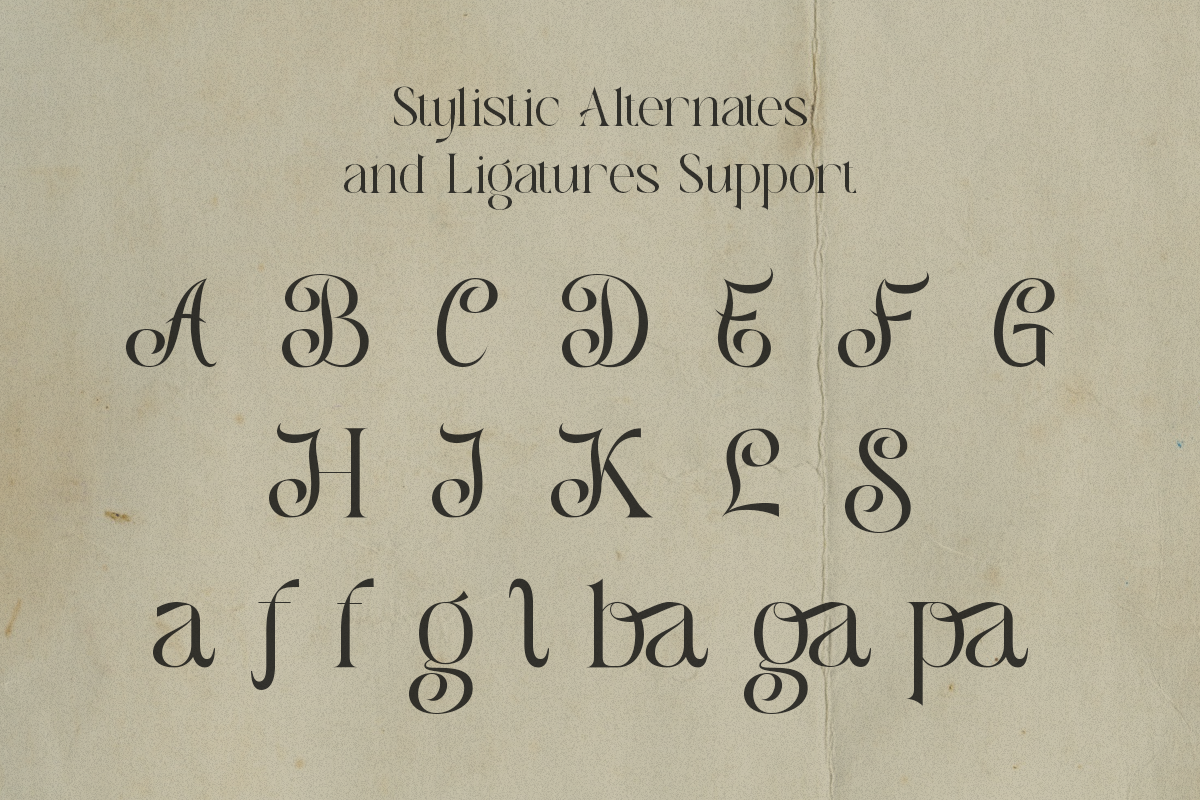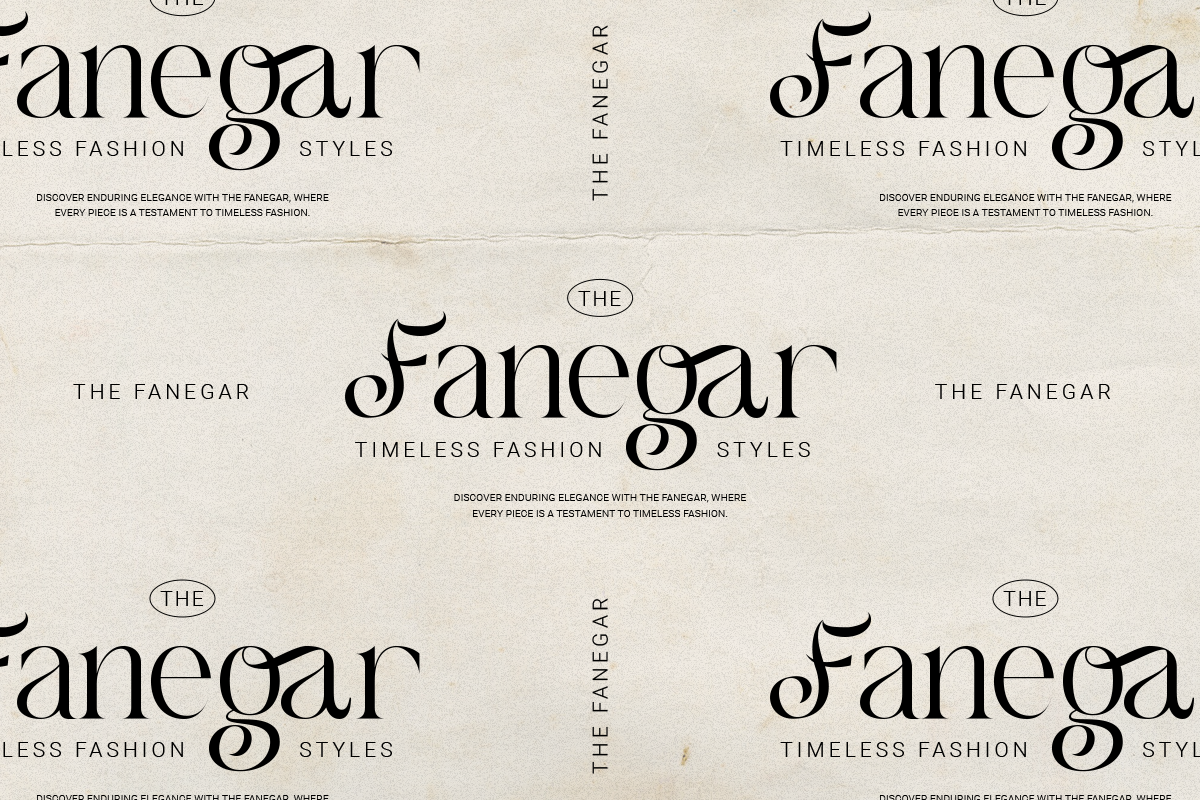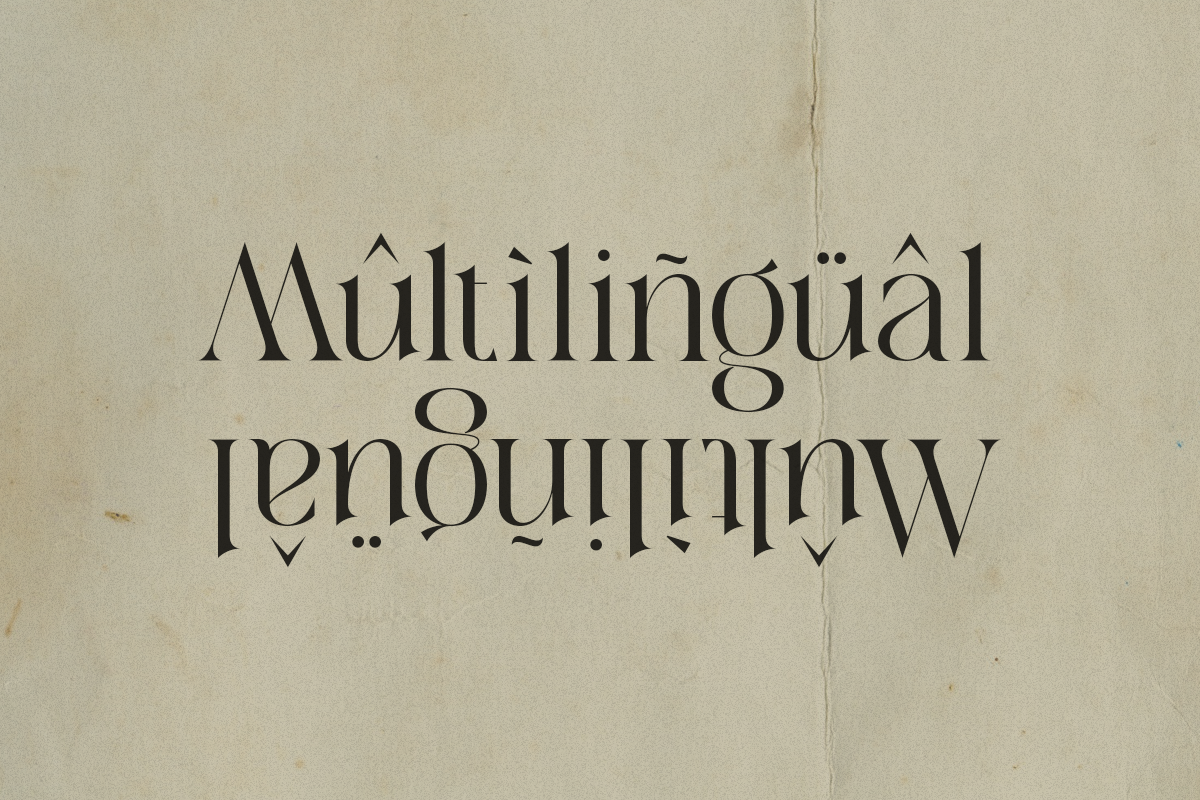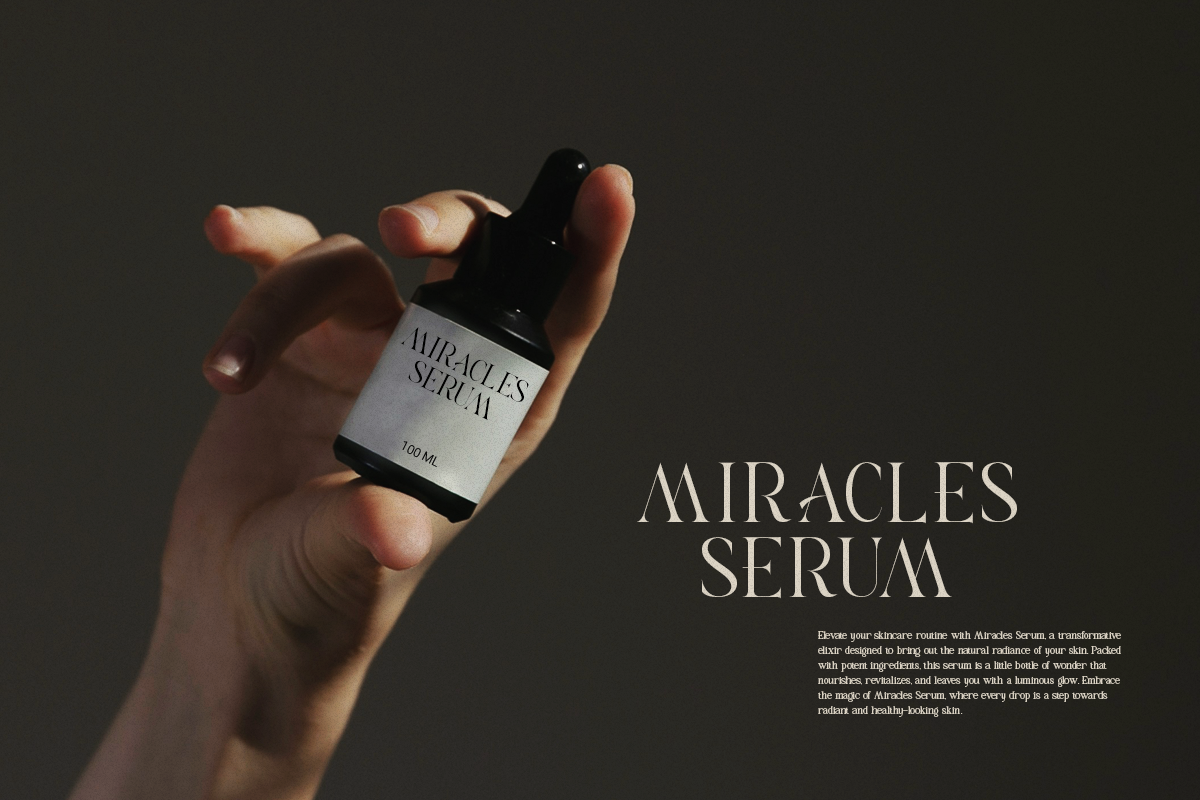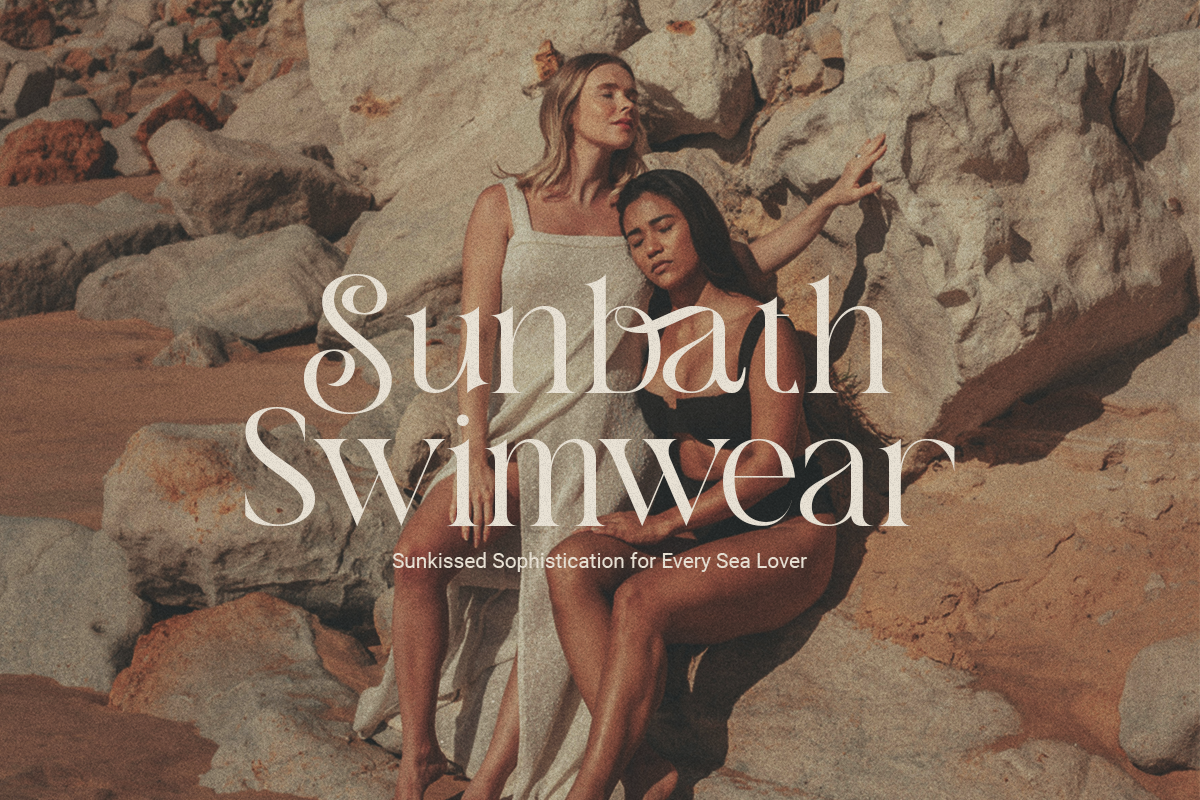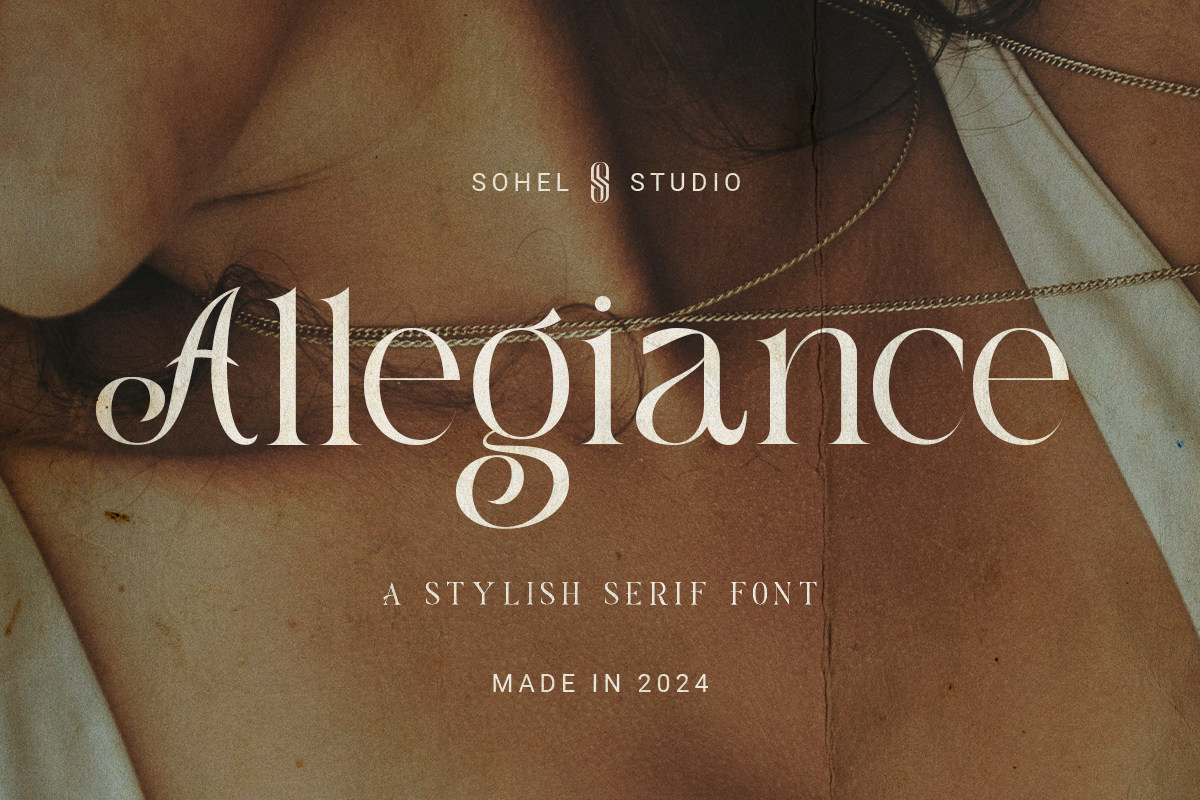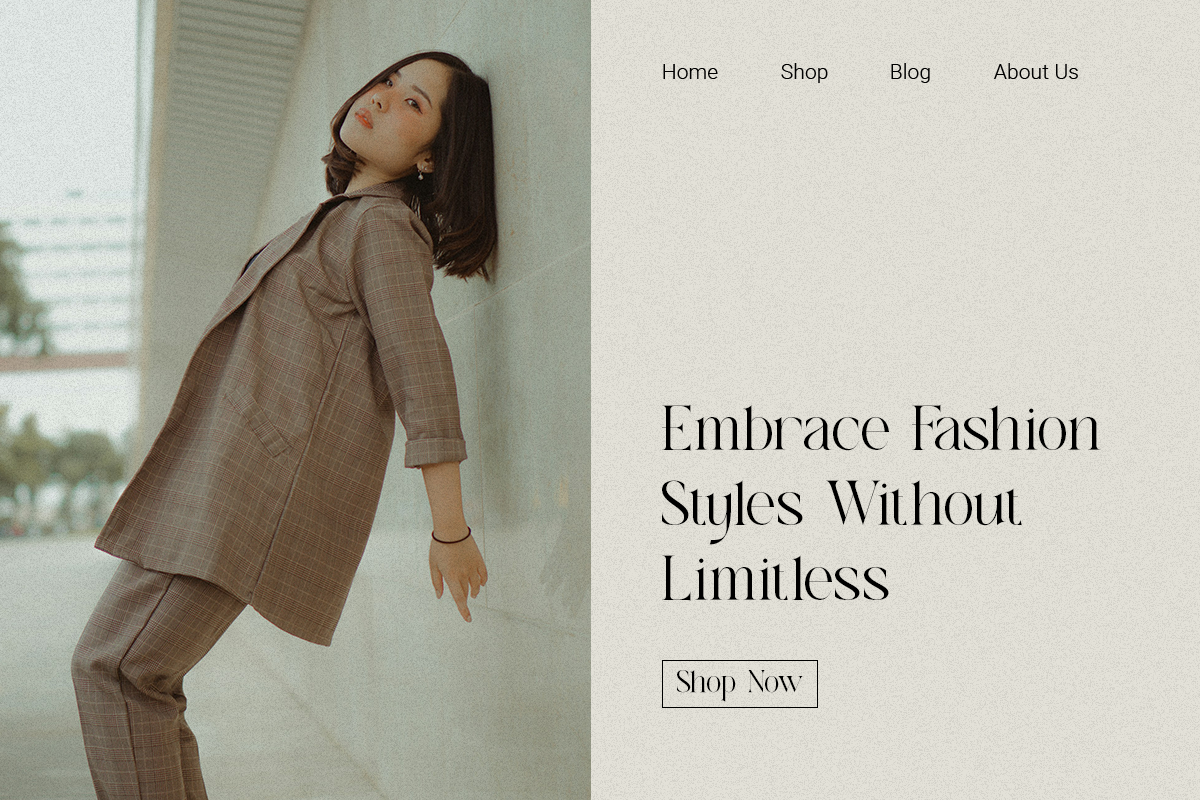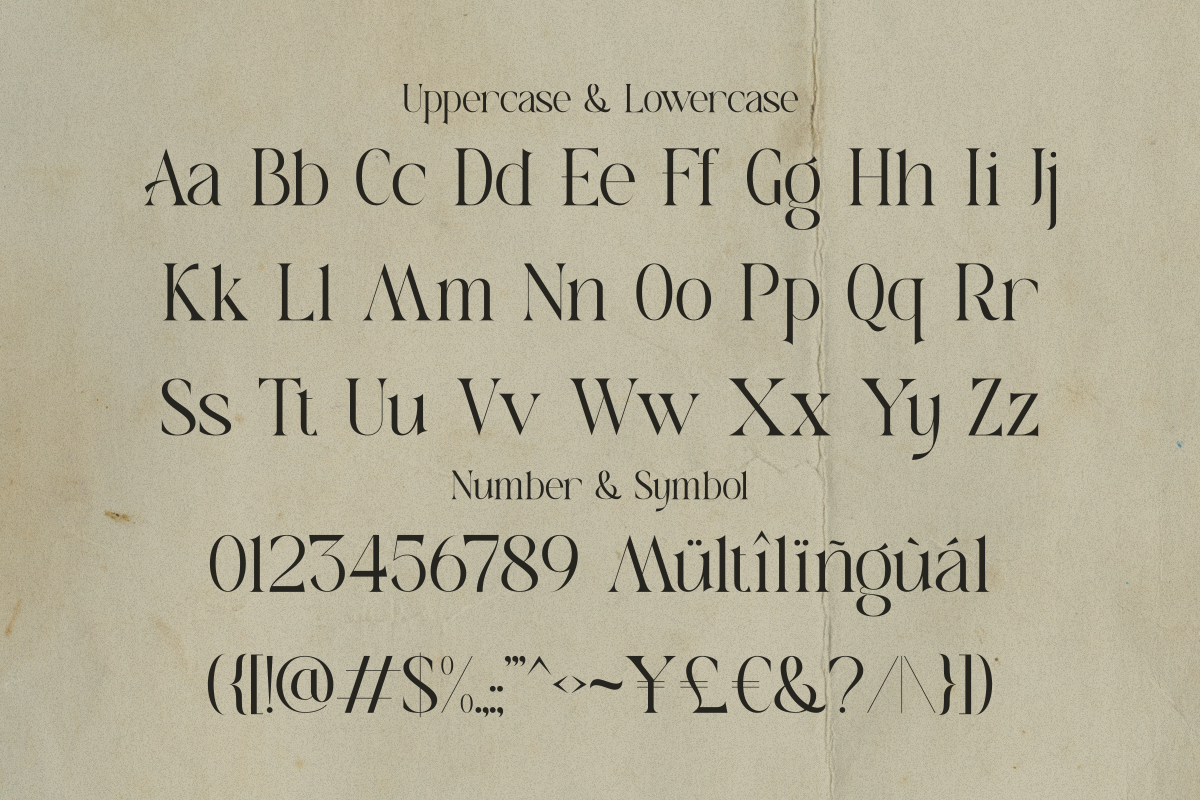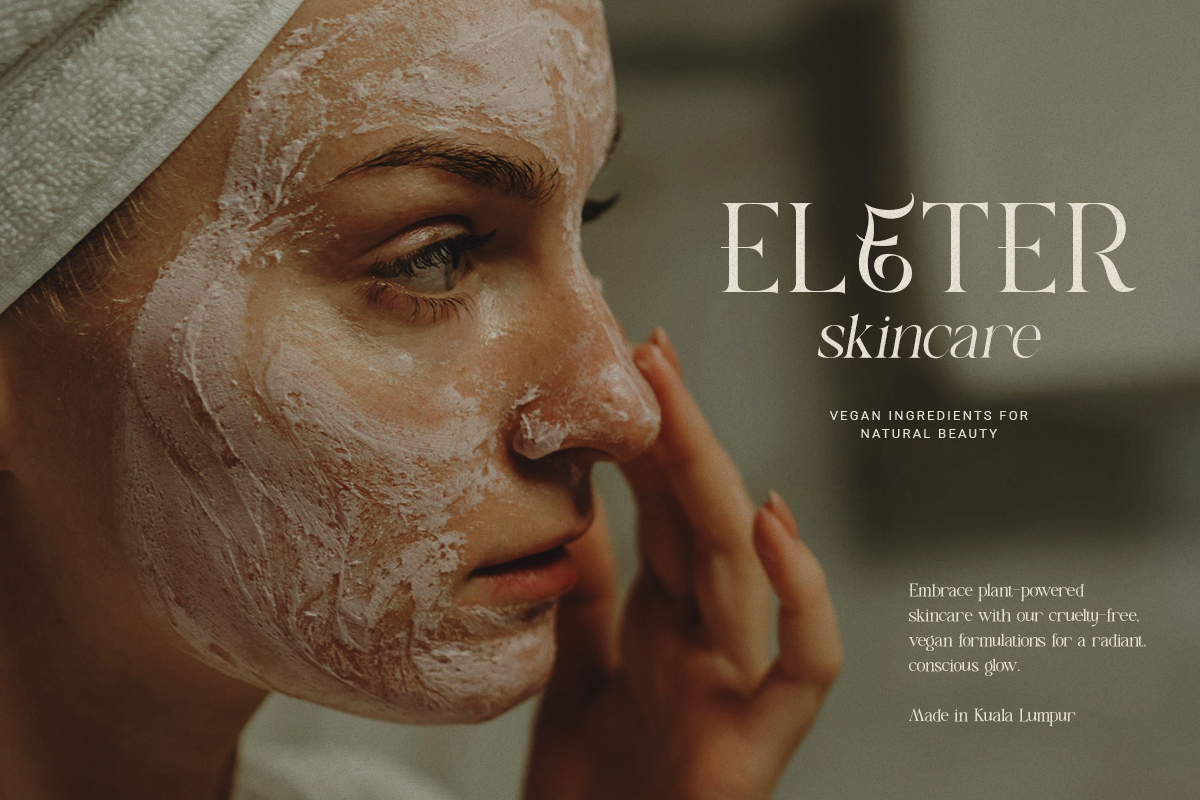
Allegiance - Unique Alternate Font
Introducing Allegiance, an elegant thin serif font designed to add a touch of luxury to your design projects. With its unique alternates, Allegiance offers incredible creative flexibility, making it ideal for branding, invitations, magazines, logos, and a variety of other creative projects. This sophisticated font is perfect for designers seeking a refined and classy typeface that enhances the visual aesthetics of their work. Allegiance is easy to use across various design platforms such as Canva and Cricut, making it the perfect choice for adding a touch of elegance to your design projects.
- Elegant Thin Serif Style: Adds a touch of sophistication to any project.
- Unique Alternates: Provides creative flexibility and uniqueness.
- Versatile Use: Ideal for branding, invitations, magazines, logos, and more.
- High-End Aesthetic: Perfect for luxury and refined design projects.
- Easy to Use: Compatible with Canva, Cricut, and other design platforms.
- Full Set of Characters: Uppercase, lowercase, numerals, punctuation, and symbols.
- Unique Alternates: For creating distinctive and personalized designs.
- Multilingual Support: Includes characters for multiple languages.
- Bonus Glyphs: Additional decorative elements to enhance your designs.